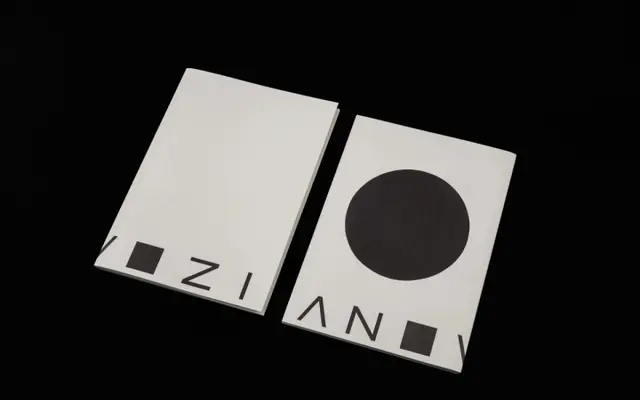
Aeroport
A geometric sans-serif with Latin and Cyrillic support across five weights, accompanied by italic and a monospaced variant.
Offered in five weights from Light to Black with matching italics, Aeroport covers 72 languages across Latin and Cyrillic scripts. A separate Mono subfamily extends its utility to code and tabular settings. Its clean, rational forms and broad language support make it a practical choice for international publishing, corporate identity and interface work.
Clean geometric proportions and optically balanced construction place this firmly in the geometric sans-serif category, with a neutral, rational character typical of airport and wayfinding-inspired designs.